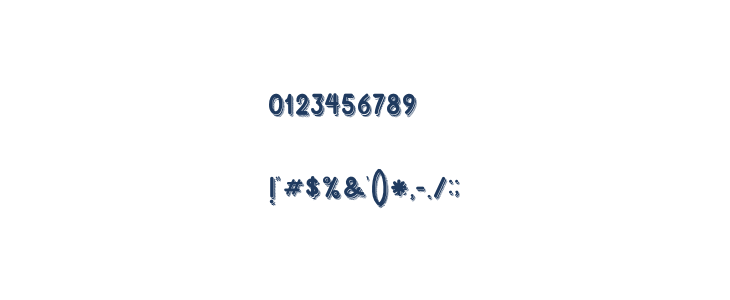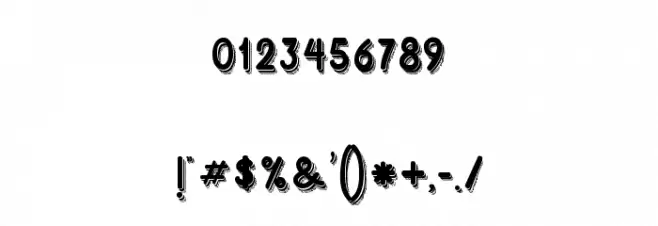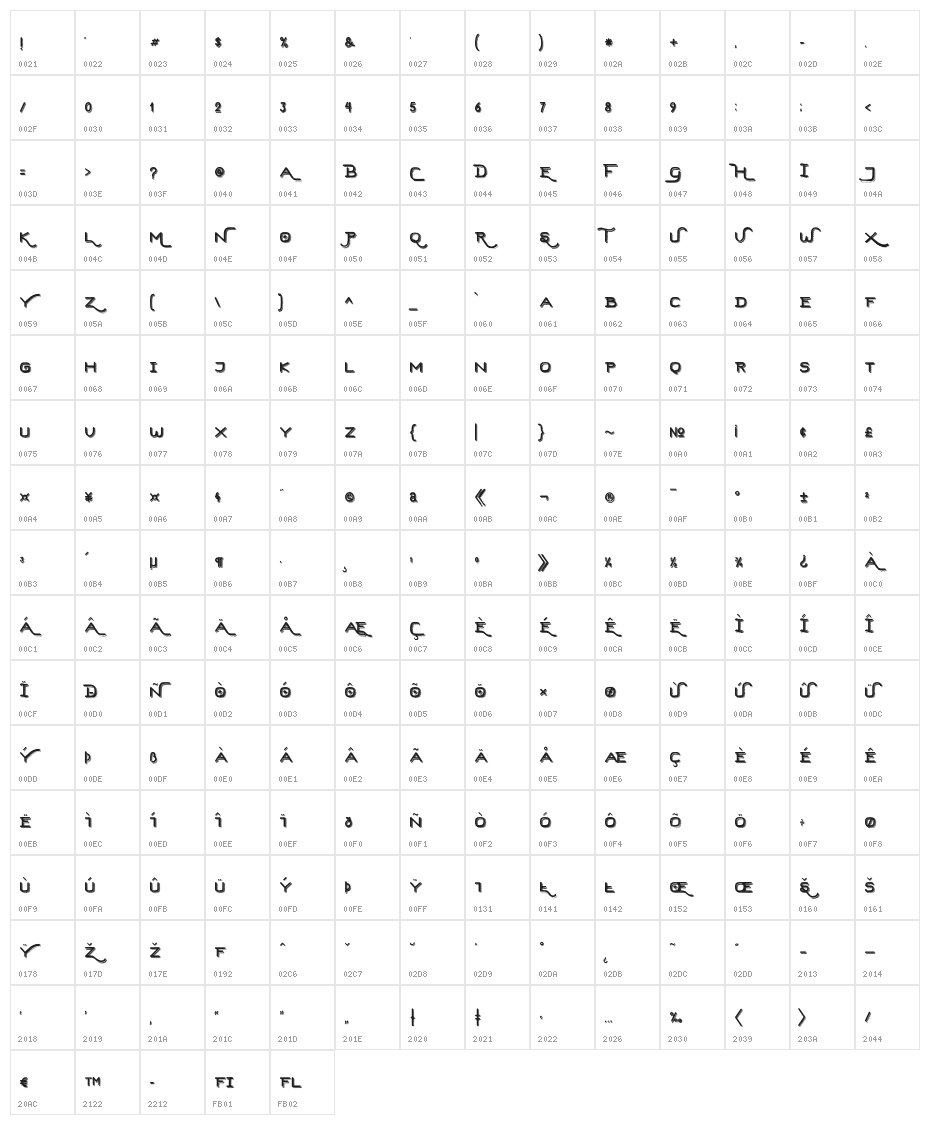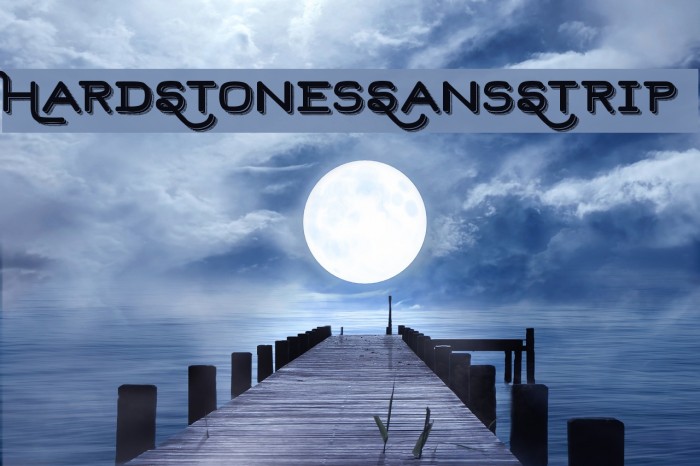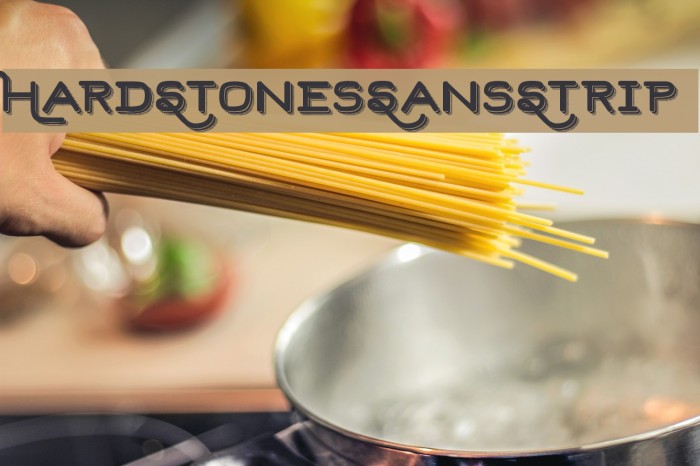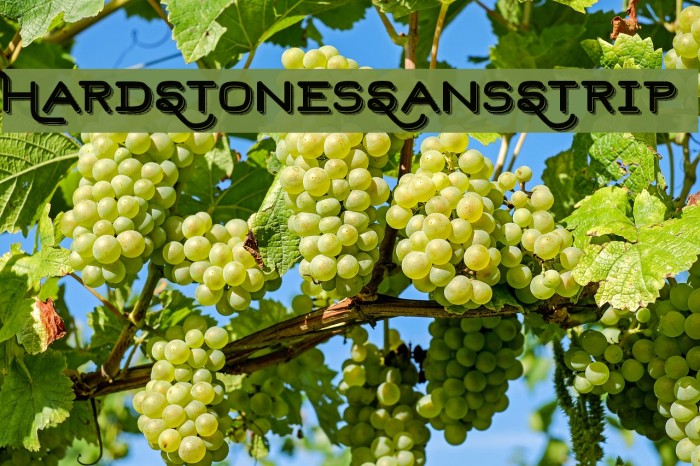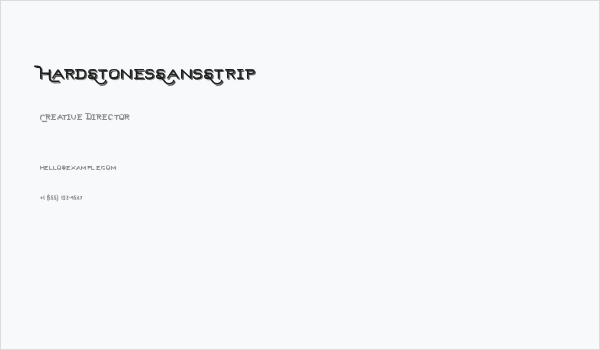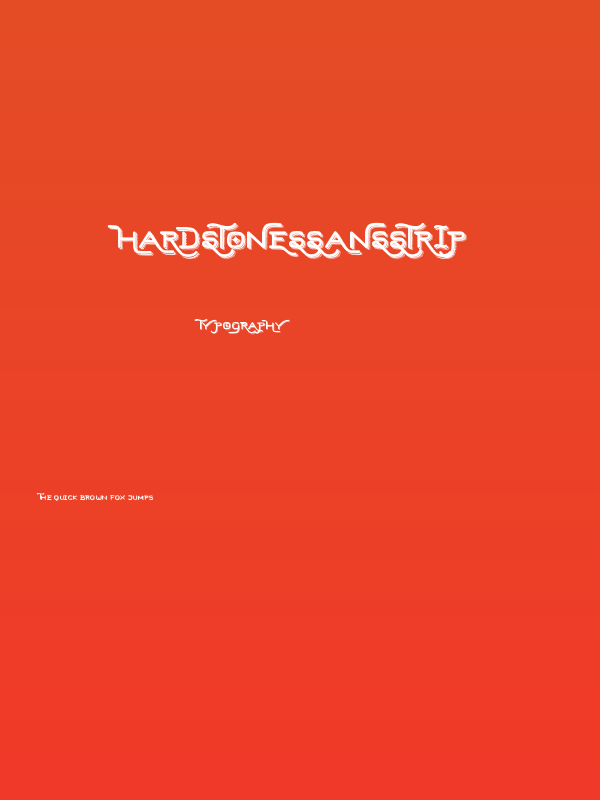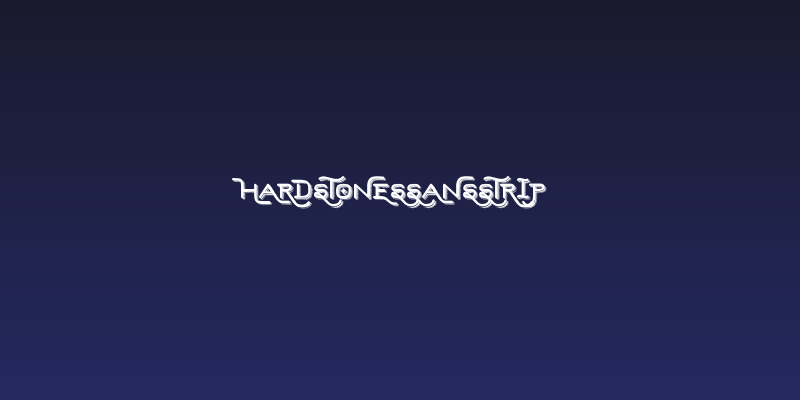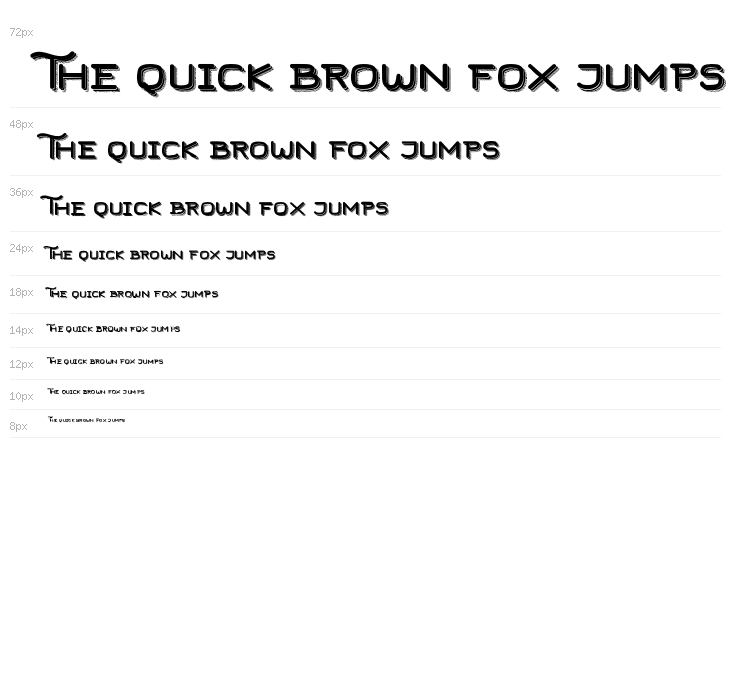
HardStonesSansStrip Font
HardStonesSansStrip Description
This font features a unique blend of modern and decorative elements, characterized by its bold and striking appearance. The uppercase letters exhibit a playful yet structured design, with some characters incorporating extended strokes and curves that add a dynamic flair. The lowercase letters maintain a consistent style, offering a harmonious balance with the uppercase set. Numbers and special characters follow the same aesthetic, ensuring uniformity across all glyphs. The font's distinct style makes it stand out, with a slightly condensed width and medium contrast in stroke thickness. Its decorative nature is evident in the intricate details and creative letterforms, making it suitable for eye-catching designs.